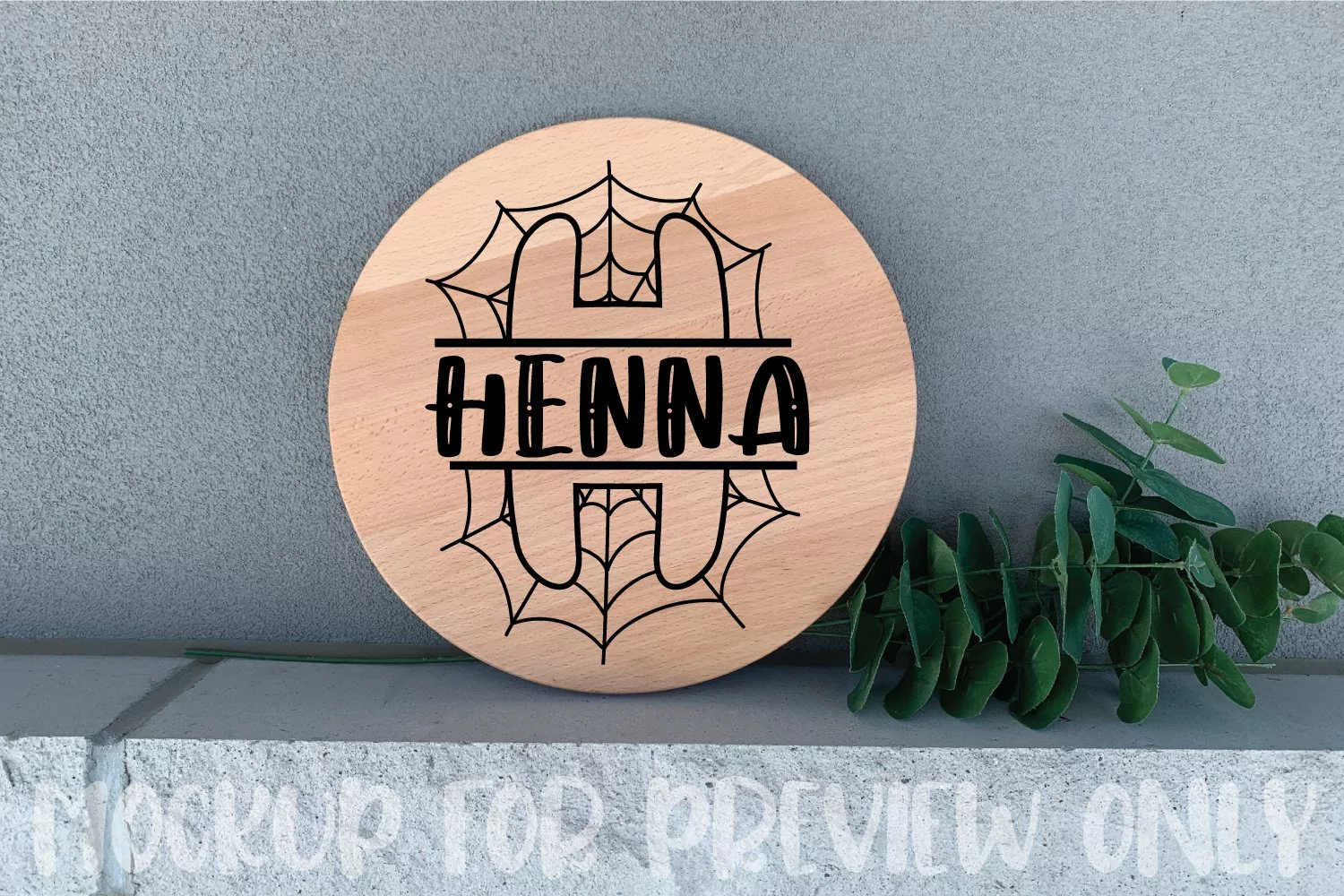
Presenting Cute font for you. Spider Web - Monogram Font for Halloween can be used in tons of projects specially for child and new born projects. You can use it for craft purpose and this will looks great on shirts, printing material and other stuff.
2- UPPER Case only Letters A to Z and 0 to 9
3- Super Cute and Creative